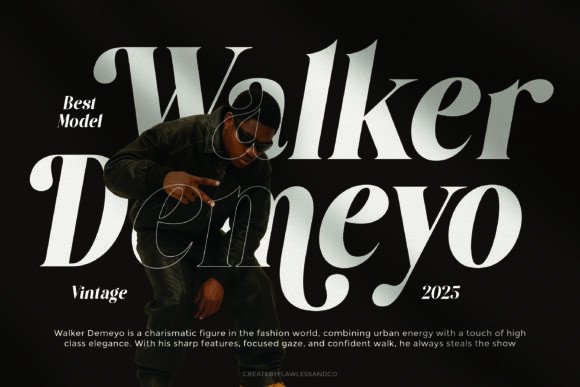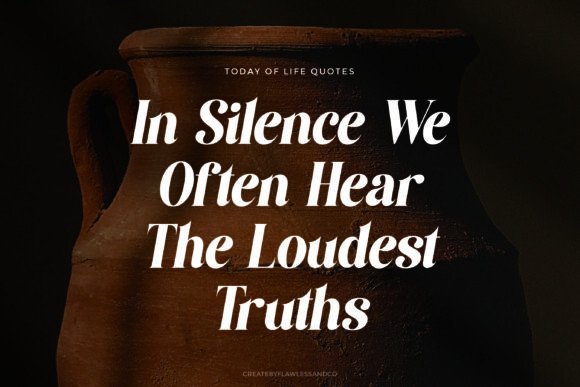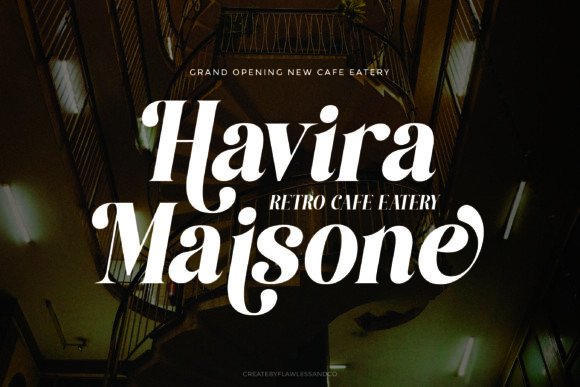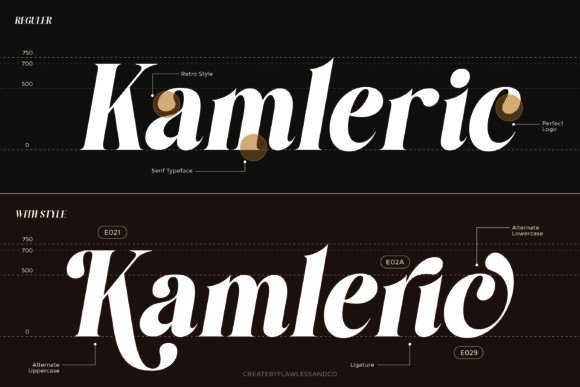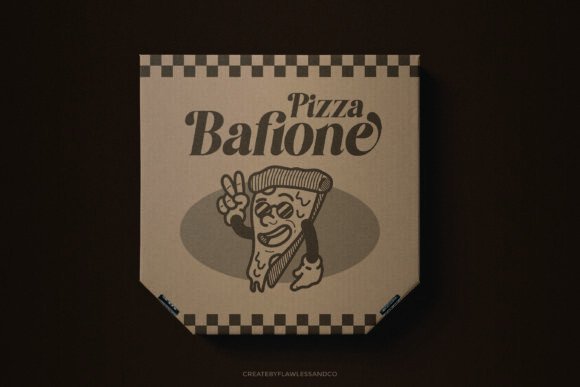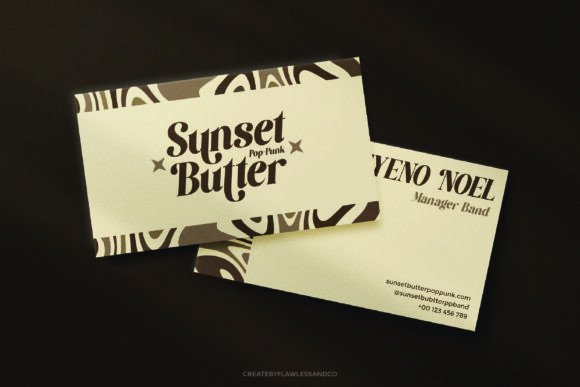
Introduction to Maristein Font
As a designer, there’s nothing quite like the thrill of stumbling upon the perfect font to elevate your creative project. For many of us, it’s that moment when the entire design starts to come together – the perfect harmony of style, elegance, and personality. And that’s exactly what the Maristein Font offers. This stylish retro serif font is a game-changer, blending vintage aesthetics with a fresh modern twist that’s sure to captivate your audience.
Whether you’re working on a branding project, designing a logo, or crafting packaging that demands sophistication, the Maristein Font is an invaluable resource. Its bold serif details and graceful curves make it a versatile choice for any design project, and its transparent background allows for seamless integration with your design elements. Plus, with a high-quality free download available, you can start experimenting with this incredible font right away.
So, what makes the Maristein Font so special? Its unique blend of retro charm and modern flair sets it apart from more generic fonts, making it a valuable addition to any designer’s toolkit. With the Maristein Font, you’ll be able to add a touch of elegance and personality to your designs, taking your creative projects to the next level.
Key Features of Maristein Font
- High-quality font design, ideal for creative projects requiring a sophisticated look.
- Features a unique, elegant design that sets it apart from other fonts in the same category.
Honest Review: Maristein Font
As a designer, I’m always on the lookout for high-quality design resources to elevate my creative projects. Recently, I stumbled upon the Maristein Font, and I’m excited to share my honest review with you.
- ✨ High-quality typography: The Maristein Font boasts a clean and elegant design that’s perfect for a variety of creative projects.
- ✨ Transparent background: The font includes a transparent background option, making it easy to layer over images or use in design applications.
- ⚠️ Limited font styles: The Maristein Font only comes in a few font styles, which may limit its versatility in certain design applications.
- ⚠️ No bold or italic options: Unfortunately, the font doesn’t offer bold or italic variations, which may make it less suitable for certain design projects.
Overall, I’m impressed with the Maristein Font’s high-quality design and versatility. While it may have some limitations, it’s a great addition to any designer’s toolkit, especially for those looking for a free design resource. With a little creativity, you can achieve great results with this font.
Some tips for getting the most out of Maristein Font include using it for creative projects that require a unique and stylish touch. You can also use it to create eye-catching headings and titles. Common use cases for Maristein Font include branding materials, social media graphics, and presentations.
Does the Maristein Font have a transparent background?
Yes, the Maristein Font has a transparent background, making it ideal for use on various backgrounds, including images and videos. This feature allows for a seamless integration with your design, giving you more creative freedom to experiment with different layouts and compositions.